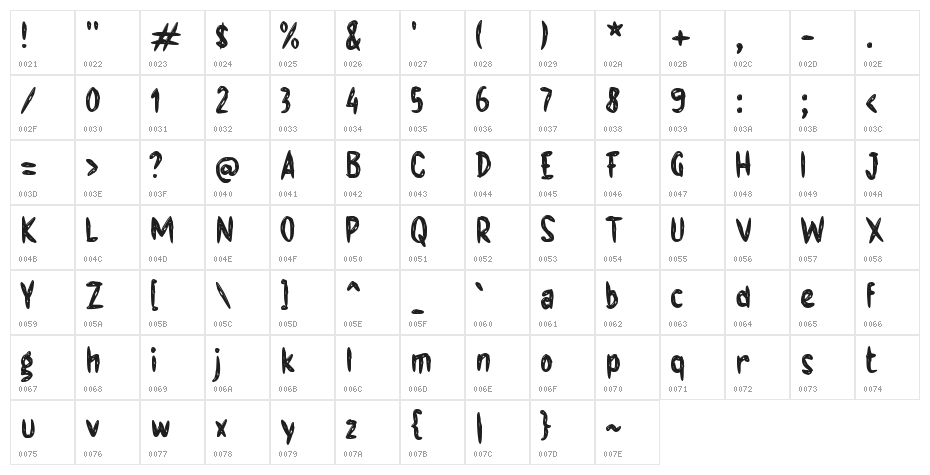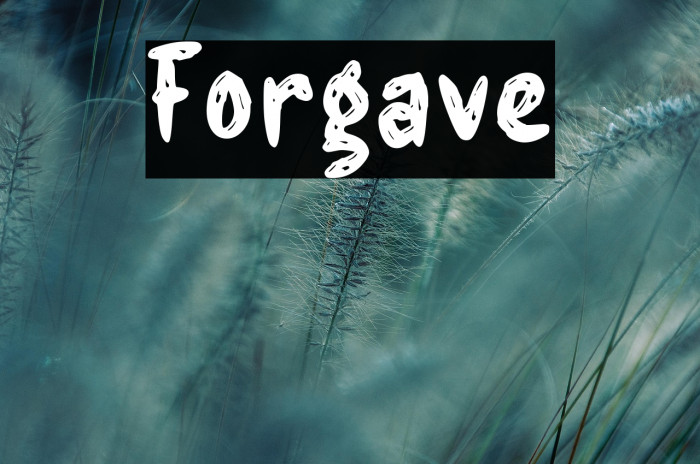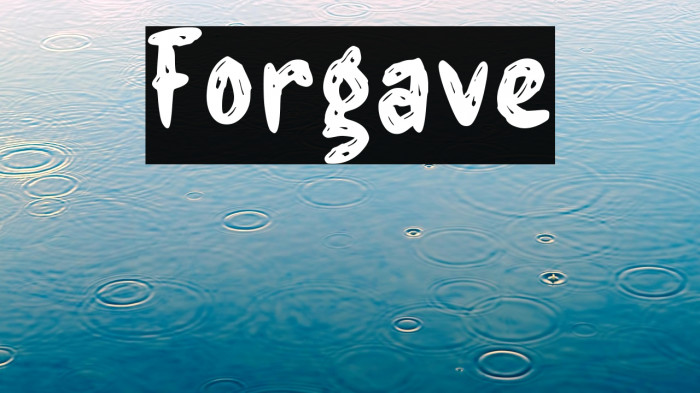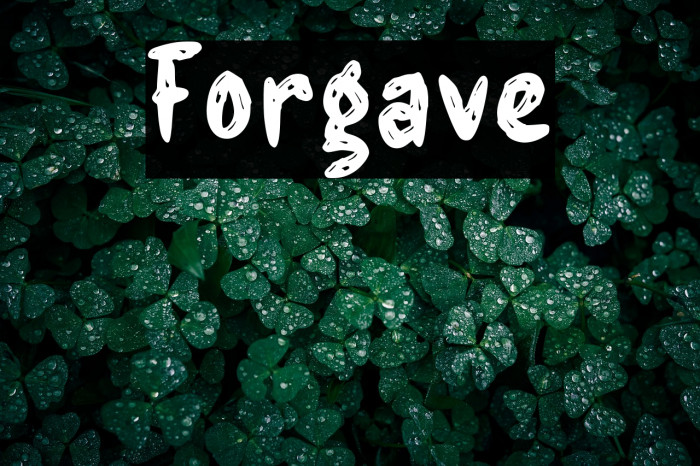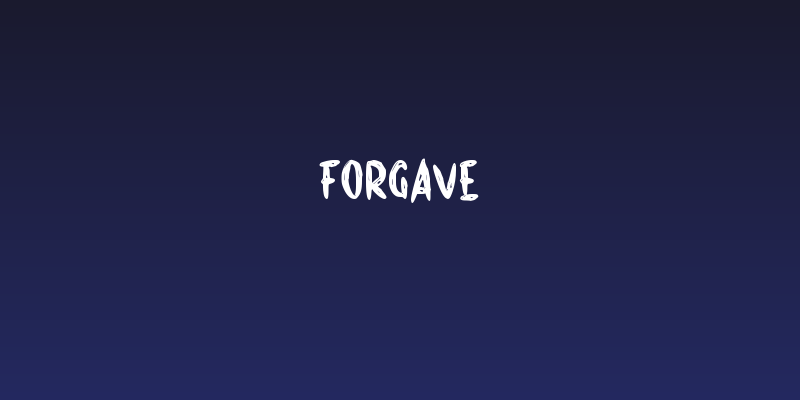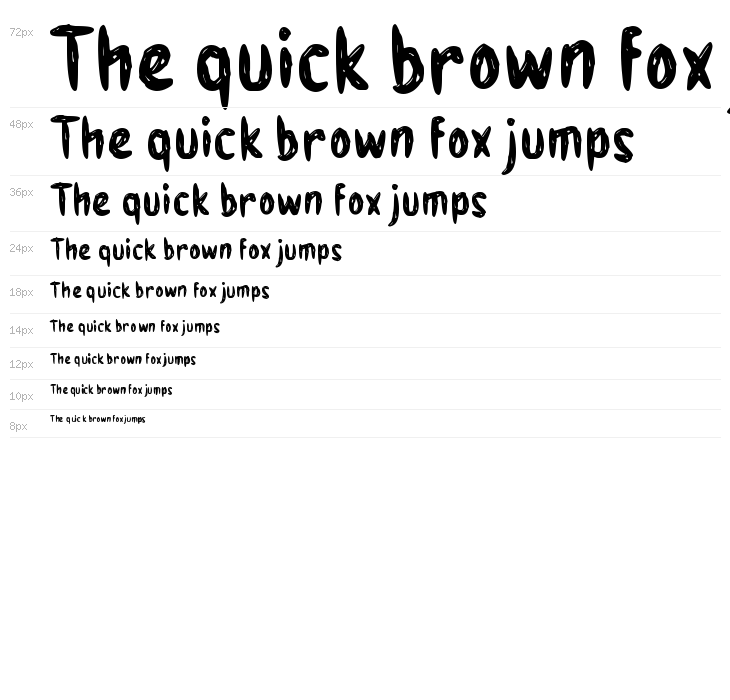
Forgave Font
Forgave Description
This font exudes a playful and energetic vibe, characterized by its bold, hand-drawn appearance. The letters are irregular and slightly tilted, giving a sense of movement and spontaneity. The strokes are thick and uneven, adding a casual and informal touch. The uppercase and lowercase letters maintain a consistent style, with rounded edges and a slightly exaggerated form. The numbers and special characters follow the same lively design, ensuring a cohesive look across all elements. This font is perfect for projects that require a fun and dynamic aesthetic.
| Use Case | Logos, Headlines, Posters |
| Proposed Projects | Ideal for children's books, playful branding, event posters, and creative social media graphics. |